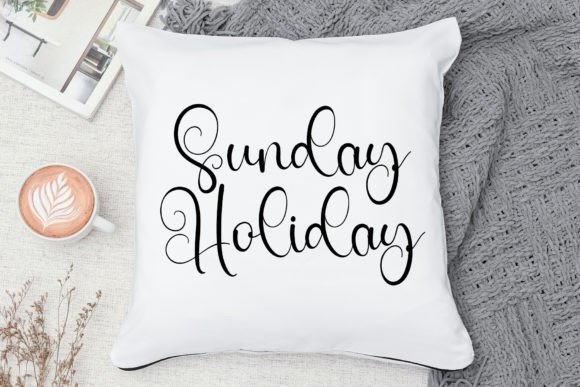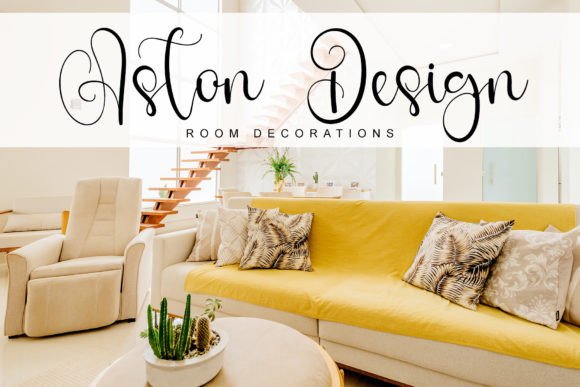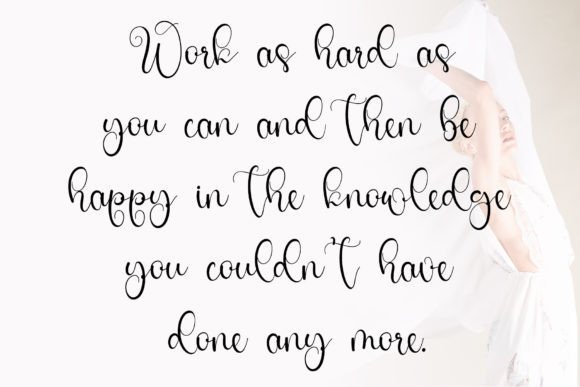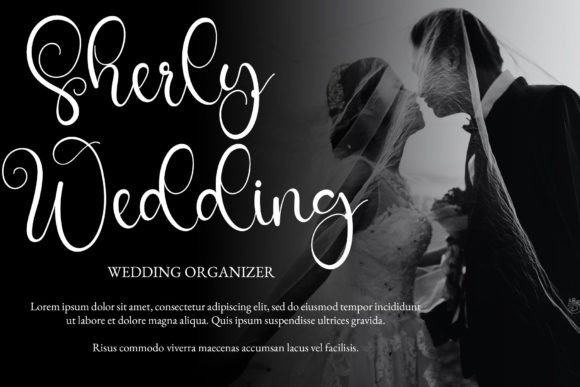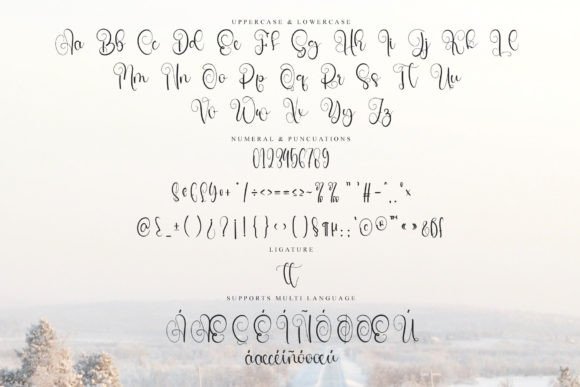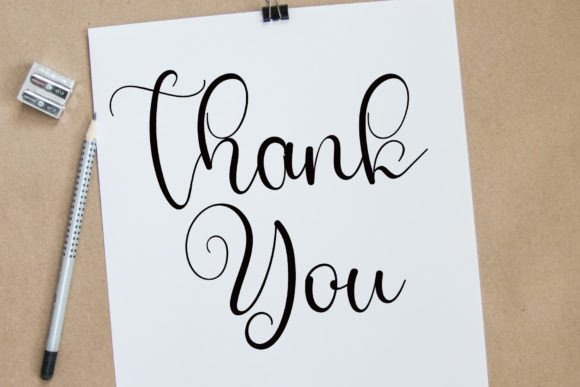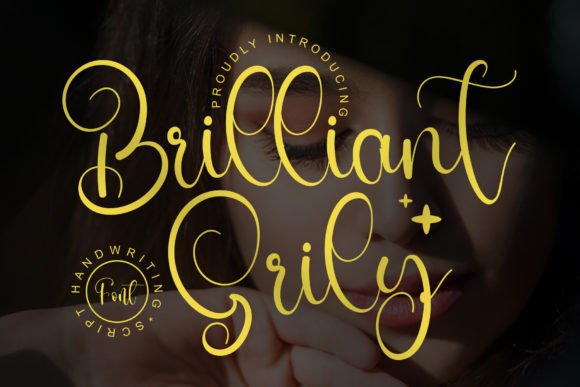
The Magic of Brilliant Girly: A Festive Font for Your Holiday Projects
It’s that time of the year again – the season of joy, giving, and endless design projects. I still remember the year I was tasked with creating a Christmas card for a client’s family. I spent hours scouring the internet for the perfect font, something that would capture the whimsy and magic of the holiday season. That’s when I stumbled upon Brilliant Girly, a festive and playful typeface that has since become a staple in my design toolkit.
An Honest Review of Brilliant Girly
So, what makes Brilliant Girly so special? Let’s dive into the good stuff and a few quirks I’ve discovered while working with this enchanting font.
• Festive and Playful: Brilliant Girly is perfect for adding a touch of holiday magic to your Christmas cards, decorations, and more.
• PUA Encoded: This font is PUA encoded, which means you can access all of the amazing glyphs and ligatures with ease!
• 🎉 Enchanting Swashes: The font comes adorned with beautiful swashes that will take your designs to the next level.
While Brilliant Girly is an amazing font, there are a few things to keep in mind:
• 🤔 Legibility: Some of the swashes and ligatures can be quite ornate, which may affect legibility at smaller font sizes.
The Story Behind Brilliant Girly
Brilliant Girly was designed with the holiday season in mind. The designer wanted to create a font that would capture the magic and whimsy of the season, with a touch of playfulness and fun. The result is a font that’s perfect for adding a touch of holiday cheer to your designs.
Q: Is Brilliant Girly suitable for body text?
A: While Brilliant Girly is a beautiful font, it’s better suited for headlines and titles. The ornate swashes and ligatures can make it difficult to read at smaller font sizes, so it’s best to use it for display text.